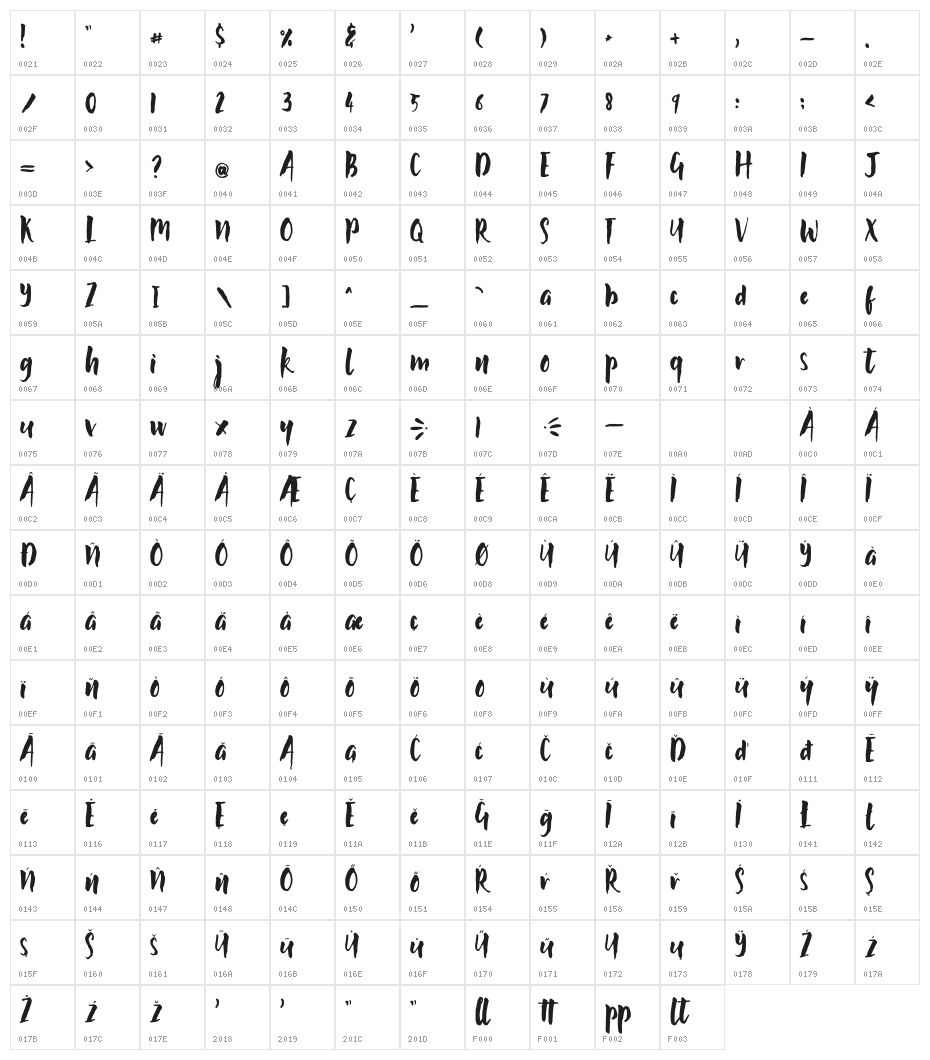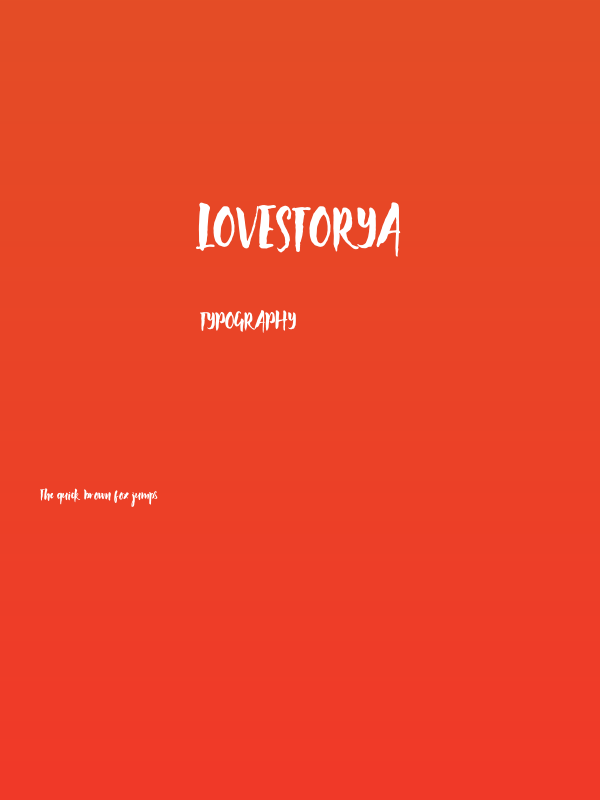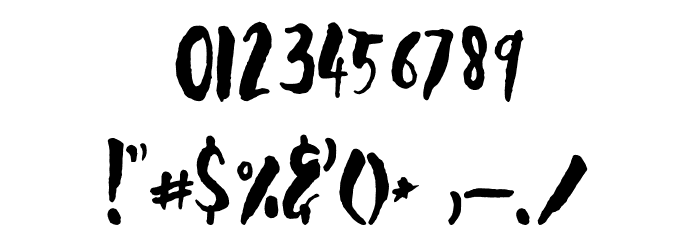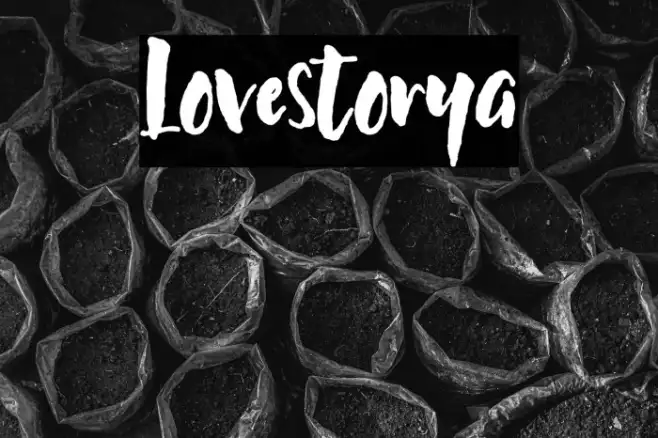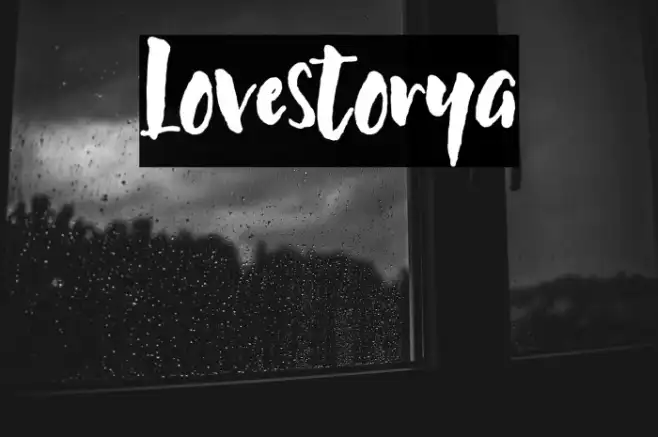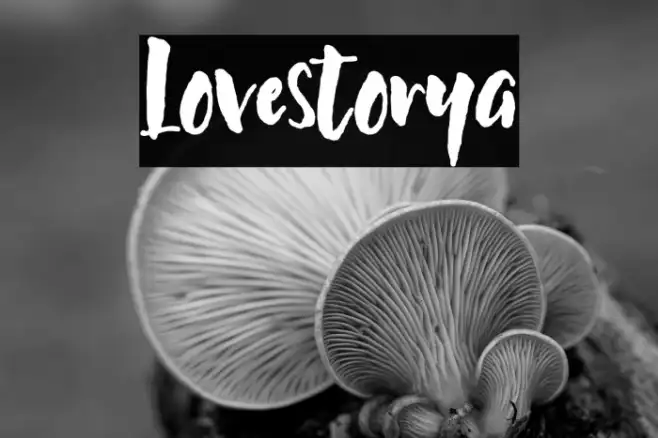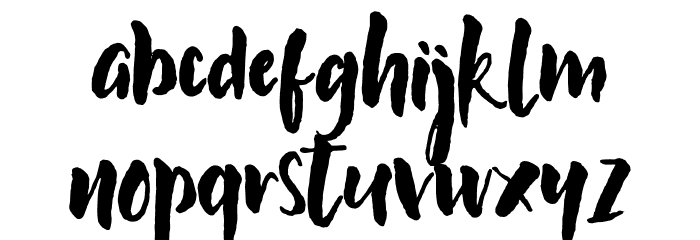
Lovestorya Font
Lovestorya Description
This font exudes a bold, expressive style with its brush-like strokes and dynamic character shapes. The letters have an organic, hand-painted appearance, giving them a lively and artistic feel. The uppercase and lowercase letters maintain a consistent flow, while the numbers and special characters complement the overall aesthetic. The font's irregular edges and varying stroke thicknesses add to its charm, making it ideal for creative and informal designs. Its unique style captures attention and conveys a sense of individuality and creativity.
| Proposed Projects | Ideal for artistic projects, posters, branding, and creative invitations. |